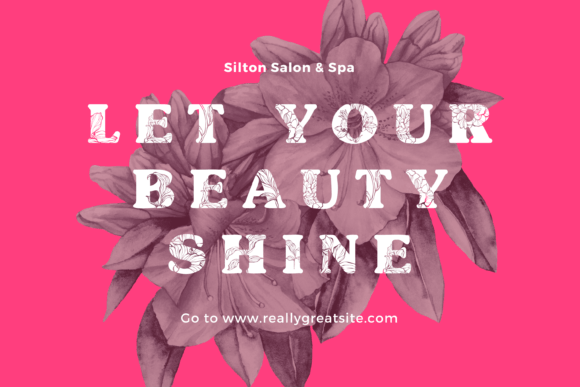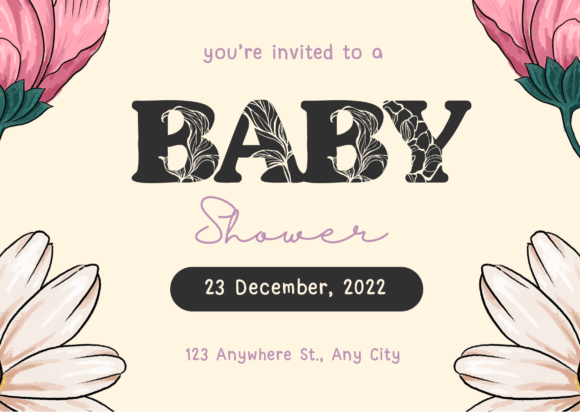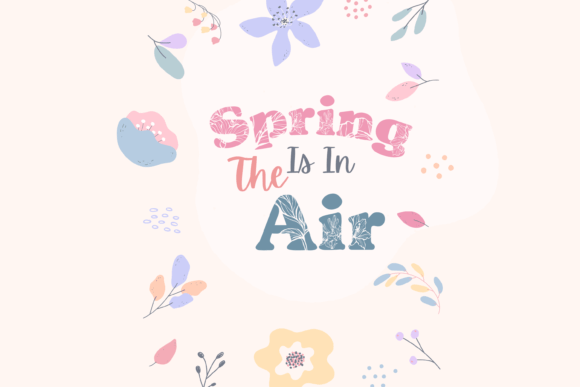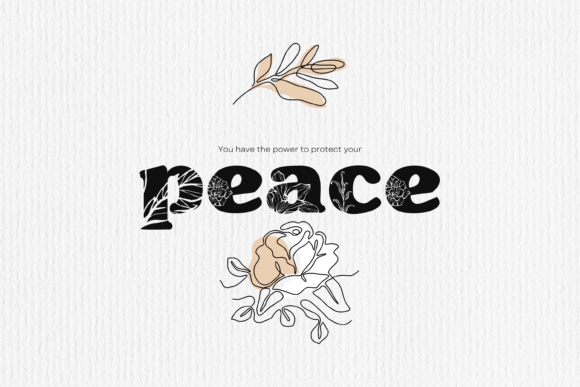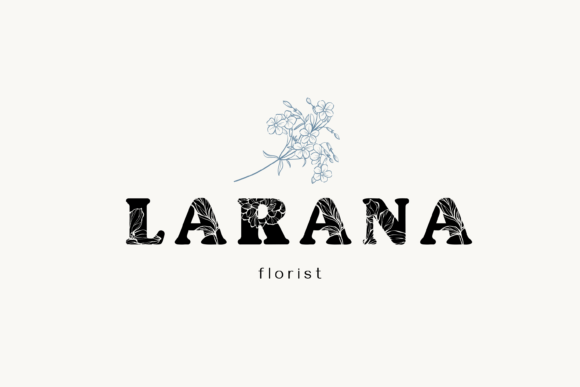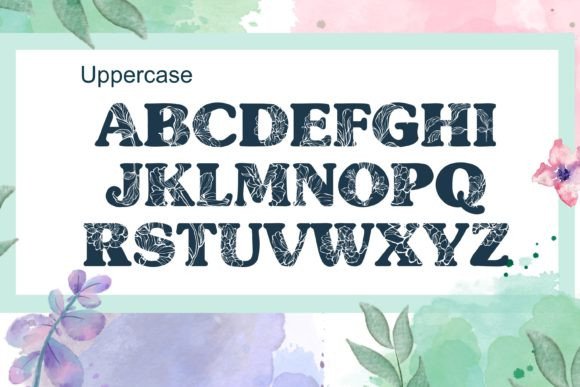
Aster Font: The Perfect Choice for Playful and Authentic Decorations
Aster Font is a bold and thick lettered decorative font that embodies playfulness and authenticity, making it the perfect choice for decorations at weddings, parties, or any children’s activity or school project. This delightful font is sure to add a touch of fun and whimsy to any design or craft project.
What is Aster Font?
Aster Font is a decorative font designed to make a statement. Its bold and thick letters are perfect for creating eye-catching headings, titles, and decorations. The font’s playful and authentic feel makes it ideal for use in a variety of creative projects, from wedding decorations to children’s party invitations.
Characteristics of Aster Font
Aster Font has several characteristics that make it a popular choice among designers and crafters. Some of its key features include:
- Bold and Thick Letters: Aster Font features bold and thick letters that are perfect for creating eye-catching headings and titles.
- Playful and Authentic Feel: The font’s playful and authentic feel makes it ideal for use in creative projects that require a touch of fun and whimsy.
- Highly Versatile: Aster Font is highly versatile and can be used in a variety of creative projects, from wedding decorations to children’s party invitations.
Uses of Aster Font
Aster Font is a highly versatile font that can be used in a variety of creative projects. Some of the most popular uses of Aster Font include:
- Wedding Decorations: Aster Font is a popular choice for wedding decorations, including wedding invitations, banners, and signs.
- Party Invitations: The font’s playful and authentic feel makes it ideal for use in party invitations, including children’s birthday party invitations.
- Children’s Activities and School Projects: Aster Font is perfect for use in children’s activities and school projects, including crafts, posters, and presentations.
- Signs and Banners: The font’s bold and thick letters make it ideal for use in signs and banners, including store signs, event banners, and directional signs.
Tips for Using Aster Font
Here are some tips for using Aster Font in your creative projects:
- Use it as a Headline Font: Aster Font is perfect for use as a headline font, where its bold and thick letters can make a big impact.
- Pair it with Other Fonts: The font’s playful and authentic feel makes it ideal for pairing with other fonts, including script fonts and sans-serif fonts.
- Experiment with Colors: Aster Font looks great in a variety of colors, including bright and bold colors, pastels, and metallic colors.
Aster Font is a bold and thick lettered decorative font that embodies playfulness and authenticity. Its highly versatile design makes it perfect for use in a variety of creative projects, from wedding decorations to children’s party invitations. With its bold and thick letters, playful and authentic feel, and highly versatile design, Aster Font is a great choice for designers and crafters looking to add a touch of fun and whimsy to their projects.